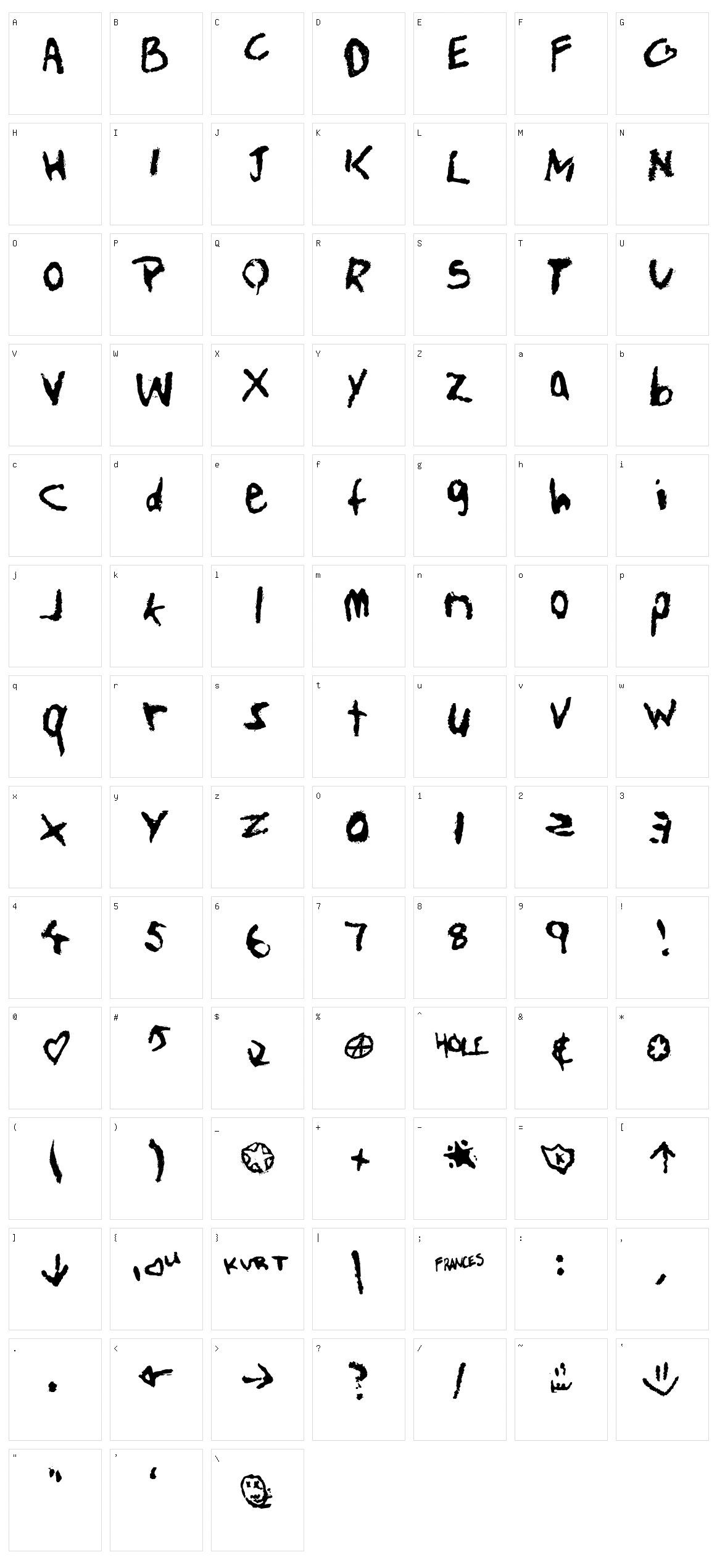
handcrafted in the emerald city, seattle, washington,
by steven j. lundeen,
emerald city fontwerks,
adapted from the graffiti left behind on a park bench
in viretta park, seattle, washington,
not 30 yards from the site of a local tragedy...
"i miss you kurt" - mdd aug 13,'95
"the only boy i'll kiss is alex k.
because he looks like you. love, lesley"